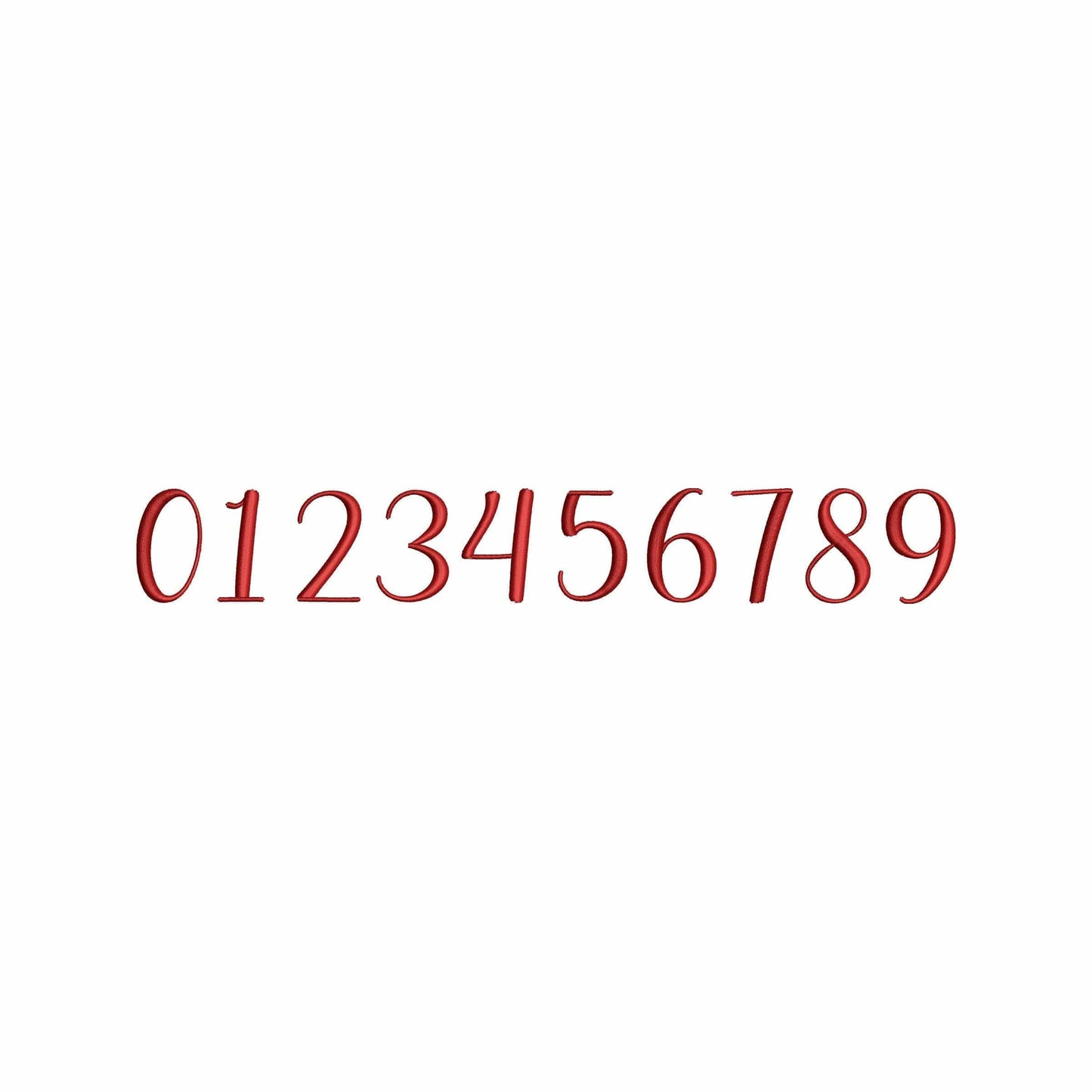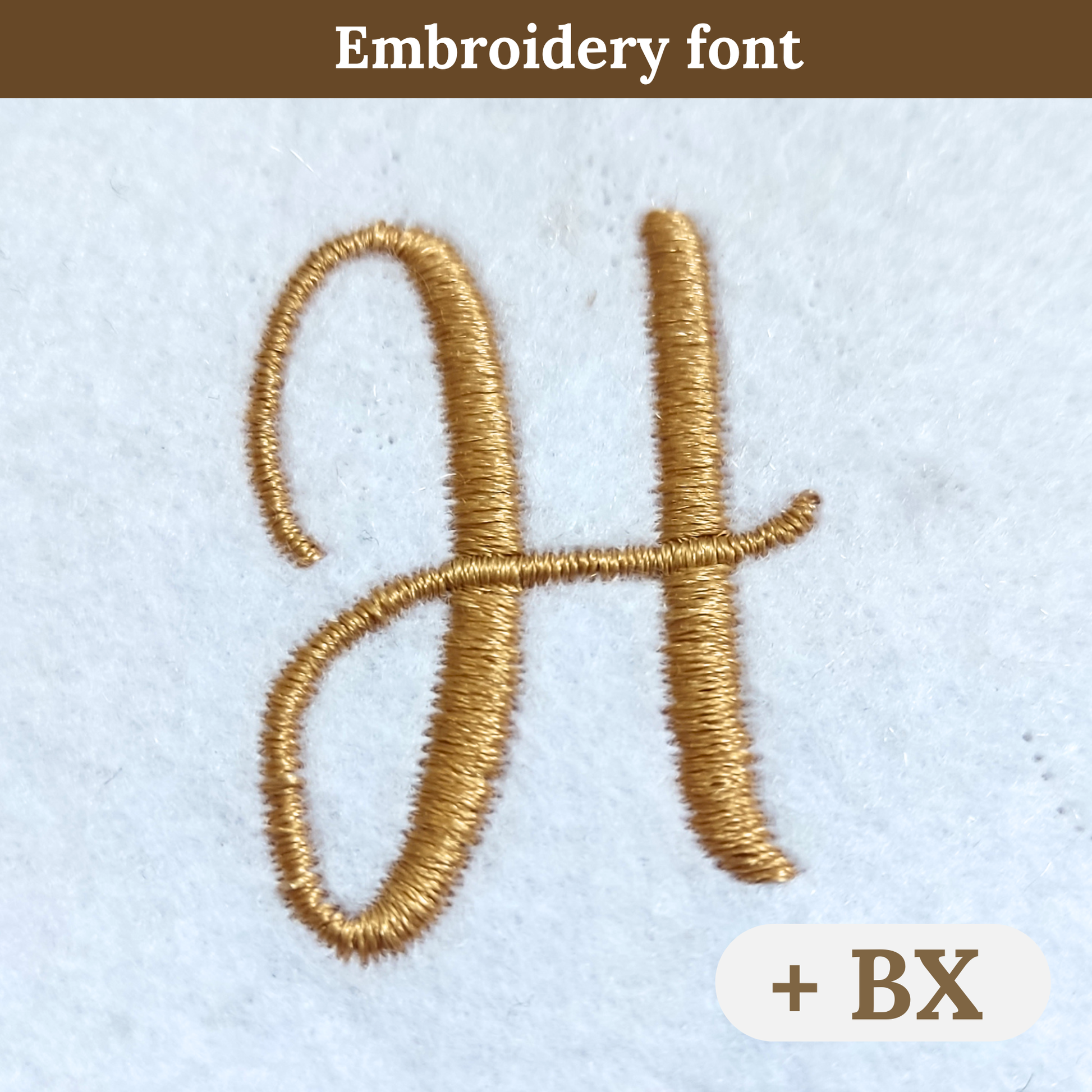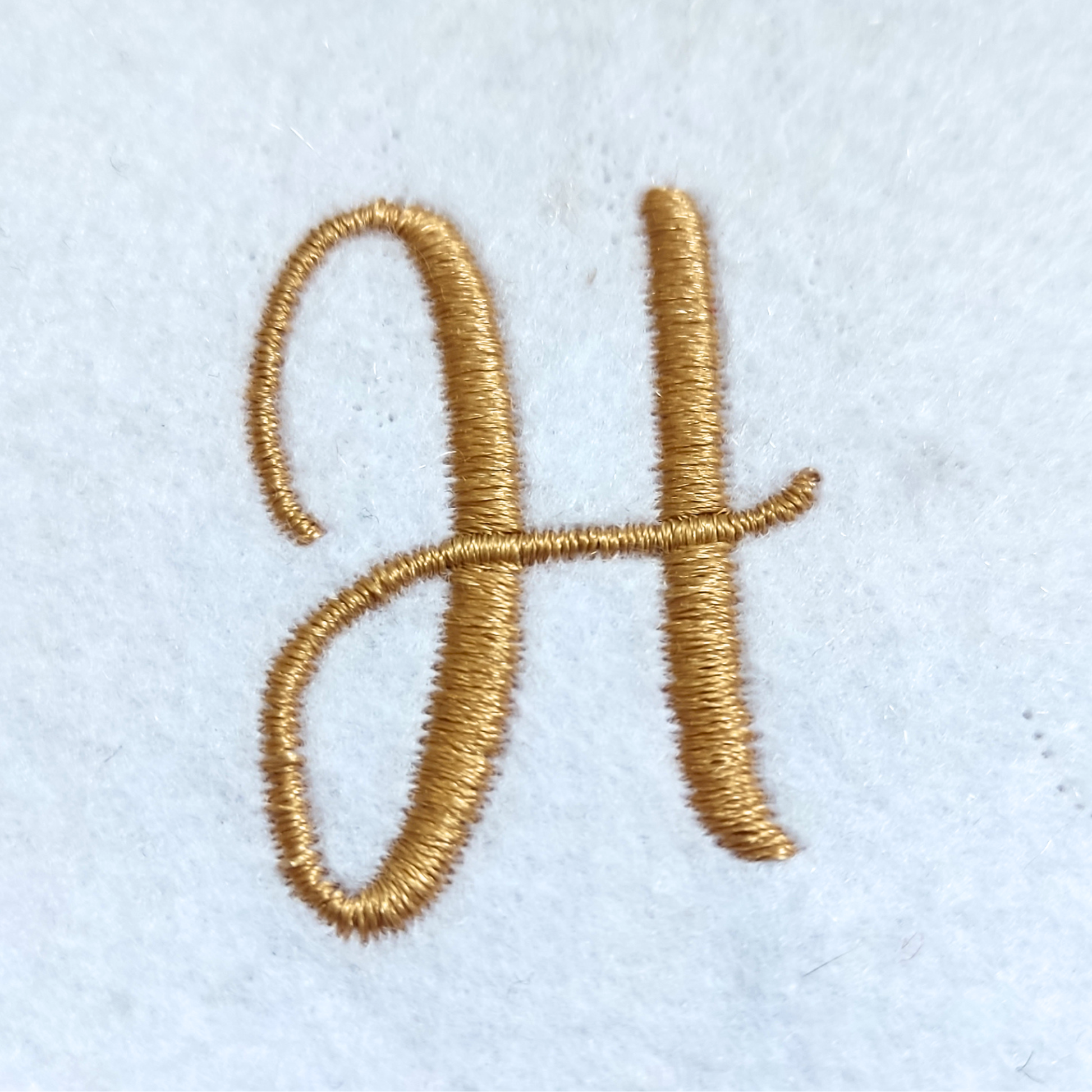
Happy Day - Embroidery font
- Included: A-Z (uppercase), a-z (lowercase), 0-9 (numbers)
This machine embroidery font works well for name shirts, towels, gifts, tote bags, and cheerful personalized embroidery.
A strong choice for makers who want script lettering with a bright playful feel for everyday custom projects.